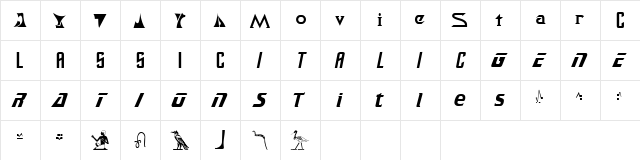
SAMUEL Regular
Design Context for SAMUEL Typeface
SAMUEL is a composed and adaptable typeface that performs quietly and consistently across a wide range of design contexts.
Pro Tip: Pair SAMUEL with a font of contrasting weight or personality to build a more expressive typographic hierarchy.